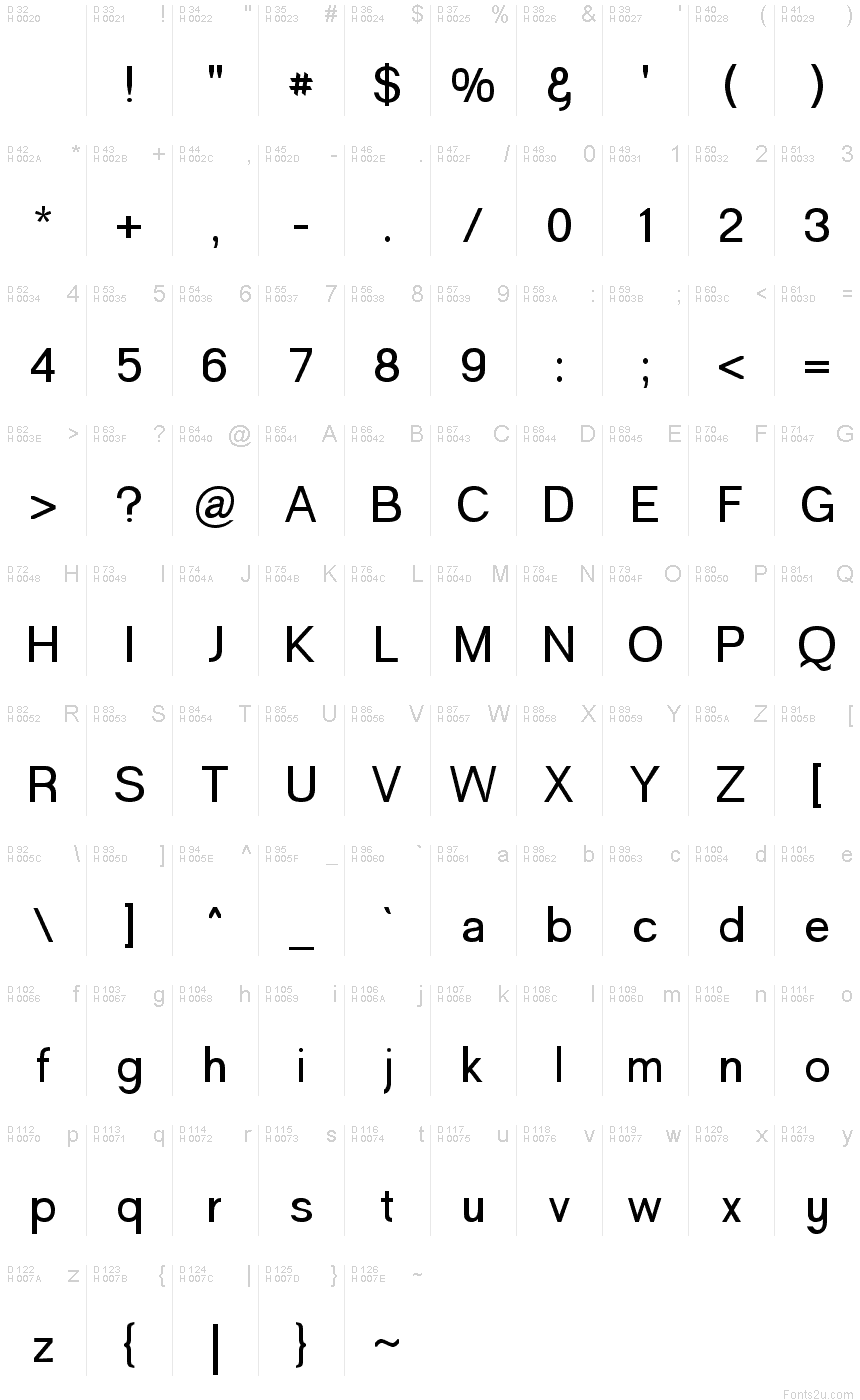
Goulong
Goulong font by G.M is a free sans serif typeface that walks a careful line between clean efficiency and quiet character. Its strokes are sturdy and even, with rounded details that soften the edges just enough to feel friendly without losing clarity. Letters sit with a calm, steady rhythm, so text feels organized and breathable rather than cramped or sterile.
Using Goulong, you get a workhorse that stays readable on screens while still giving branding a human touch. This free font shines on product packaging, app interfaces, editorial layouts, infographics, resumes, and minimalist posters. It works beautifully as a primary text face, then pairs neatly with a light geometric sans or simple serif for headings-just give Goulong a bit of extra line spacing to show off its open forms.